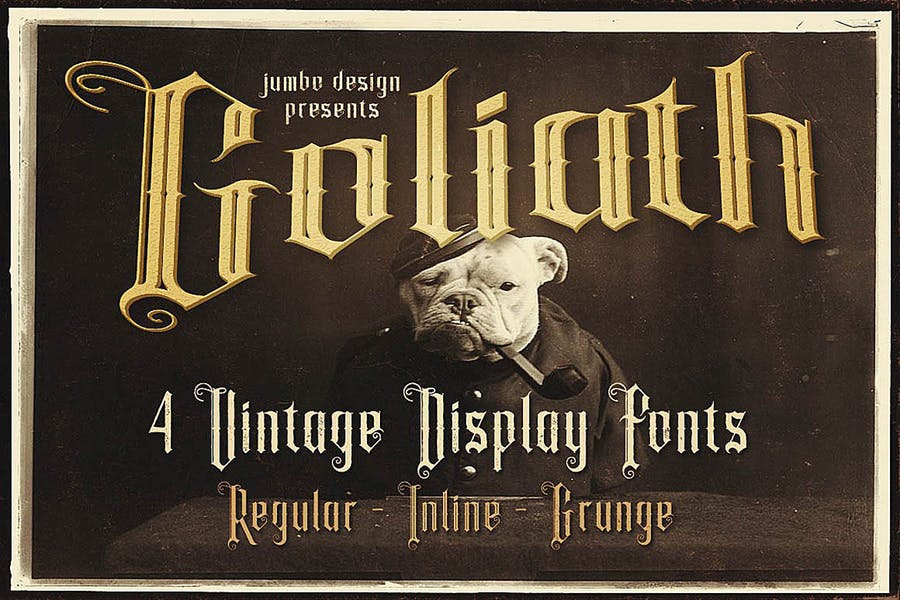
Goliath - Display Font
Goliath - Display Font is perfect for movie title cards, superhero comic books, action film posters, sports team branding, gaming tournament logos, fitness gym signage, energy drink packaging, extreme sports marketing, blockbuster movie trailers, and powerful brand identity systems.
Goliath - Display Font creates excitement because it embodies raw power and commanding presence with its bold, massive letterforms and imposing character structure. The font's monumental scale and heroic proportions instantly convey strength and authority, making any text appear dominant and unstoppable. Its carefully engineered weight distribution and dramatic visual impact create an immediate sense of epic grandeur that captivates audiences seeking bold, larger-than-life experiences and powerful brand messaging.
The Goliath - Display Font family includes multiple weights and styles: Regular, Bold, Black, Ultra Black, Italic, Condensed, Extended, Shadow, Outline, and 3D versions. Each variant maintains the font's colossal character while offering different levels of visual intensity and dimensional effects for maximum impact across various high-profile applications.
This mighty typeface represents the ultimate expression of typographic power for projects demanding maximum visual impact. Goliath - Display Font Free Download offers creative professionals and brand strategists access to premium display typography that commands attention and projects unshakeable confidence. The font's massive presence and heroic design make it ideal for brands and organizations requiring bold visual statements that cannot be ignored. Whether you're developing title sequences for major entertainment productions, creating branding for high-energy sports franchises, designing promotional materials for action-packed events, or producing marketing content for powerful consumer brands, this font delivers the commanding presence that resonates with audiences seeking epic experiences. Its exceptional performance in large-scale applications ensures maximum visibility and impact across billboards, theater screens, and digital displays. The font's monumental character makes it particularly effective for conveying strength and reliability in competitive markets. Entertainment and sports professionals appreciate its ability to communicate power while maintaining excellent readability at massive scales. The comprehensive character set includes dynamic symbols and international language support, making it suitable for global entertainment franchises and international sports organizations seeking typography that projects strength, confidence, and unstoppable determination to audiences worldwide.